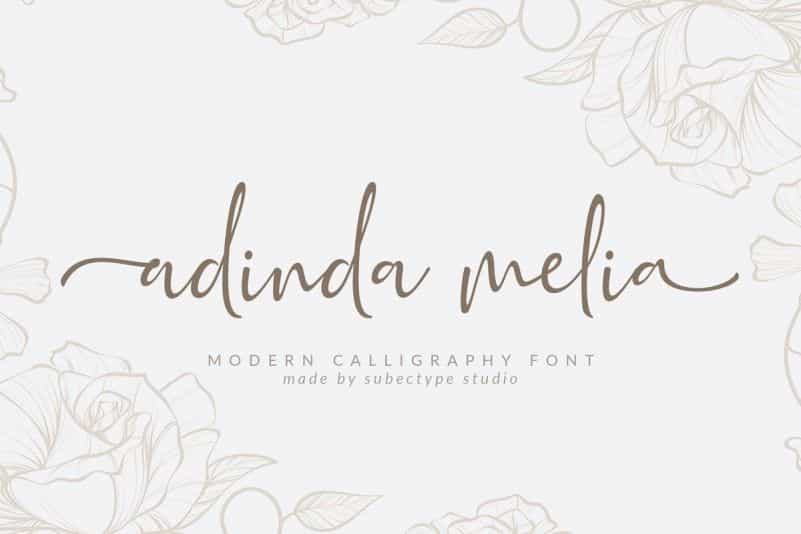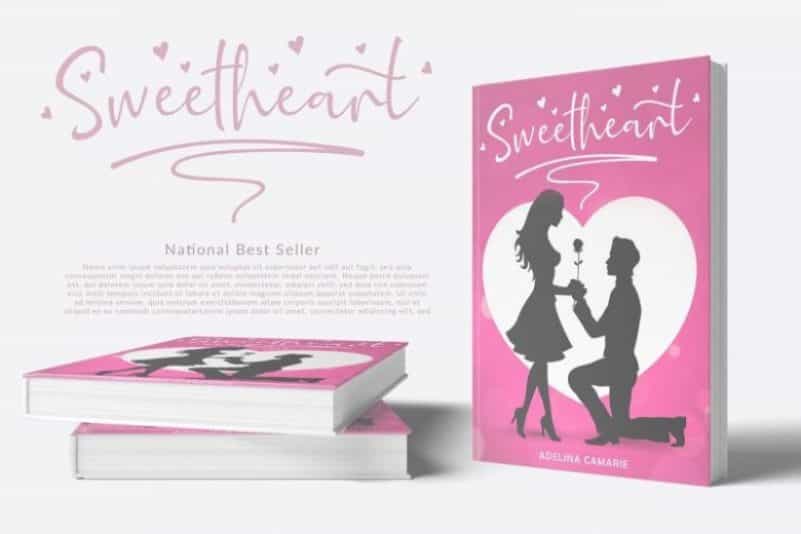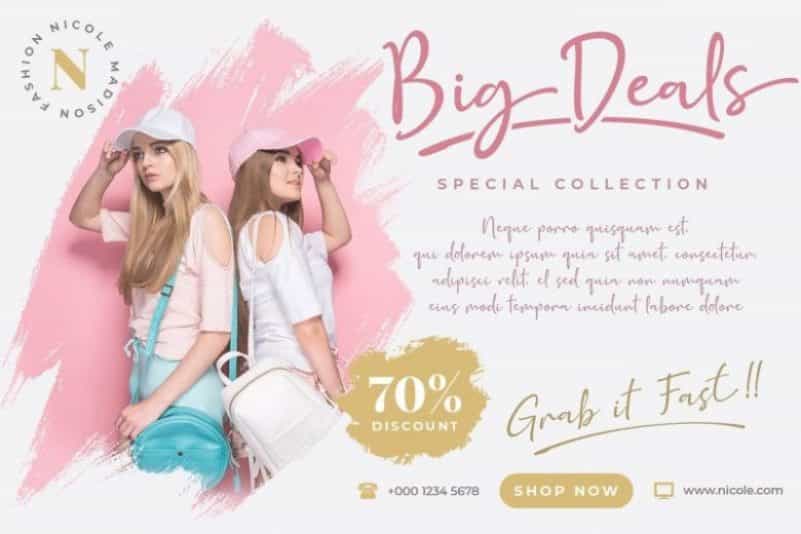
Adinda Melia is beautiful modern calligraphy script type with a little handwriting style. This font suits creating logos of signature or photography studio or invitational logo for a wedding.